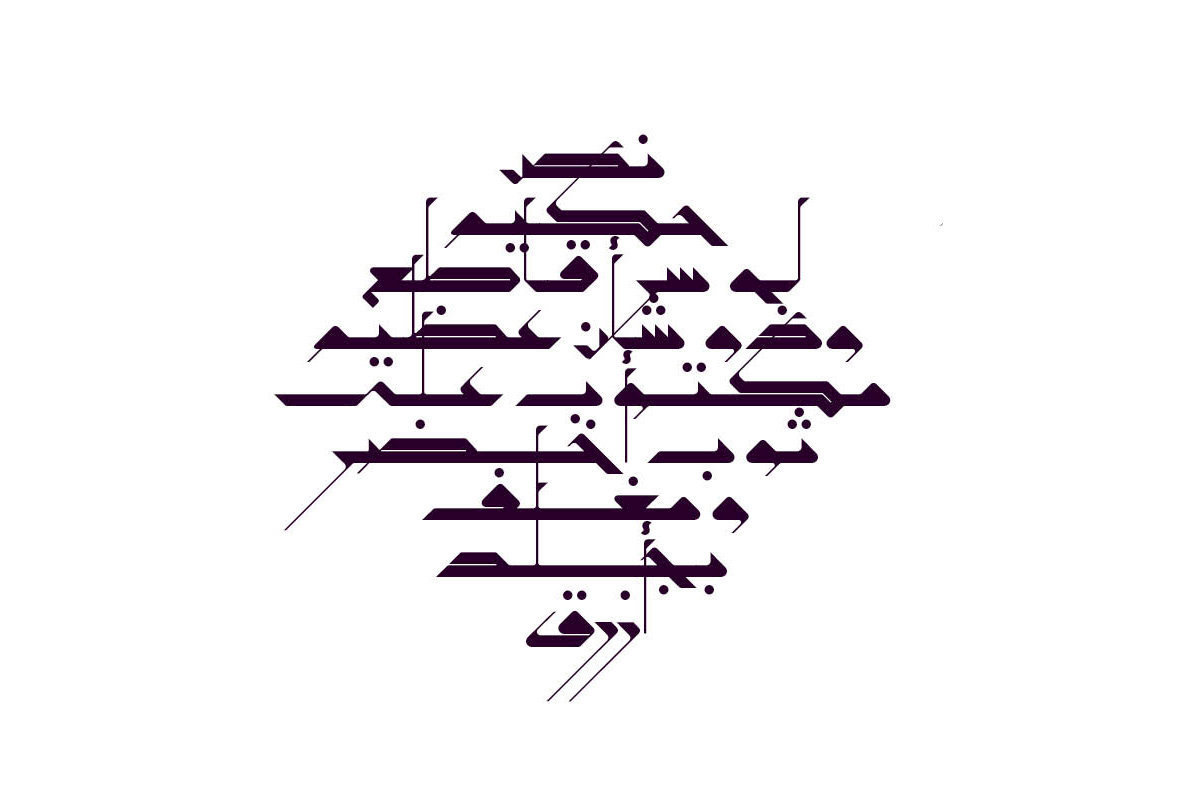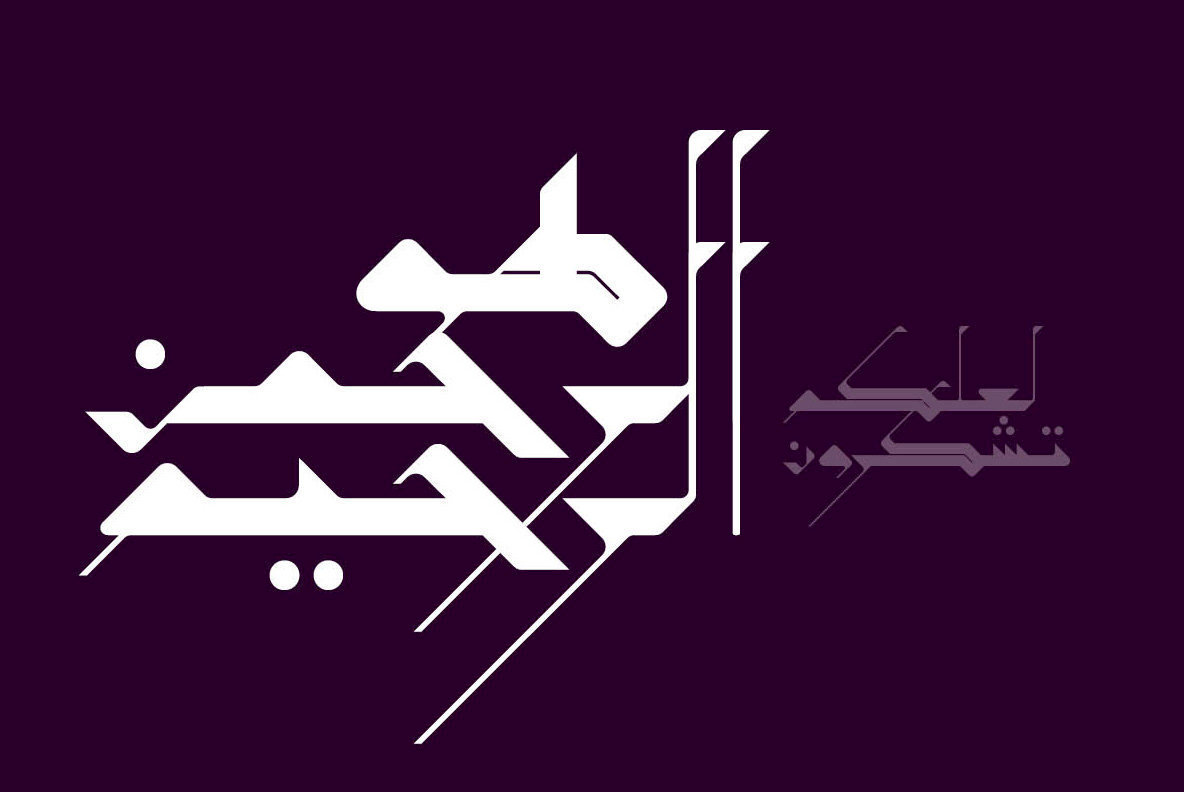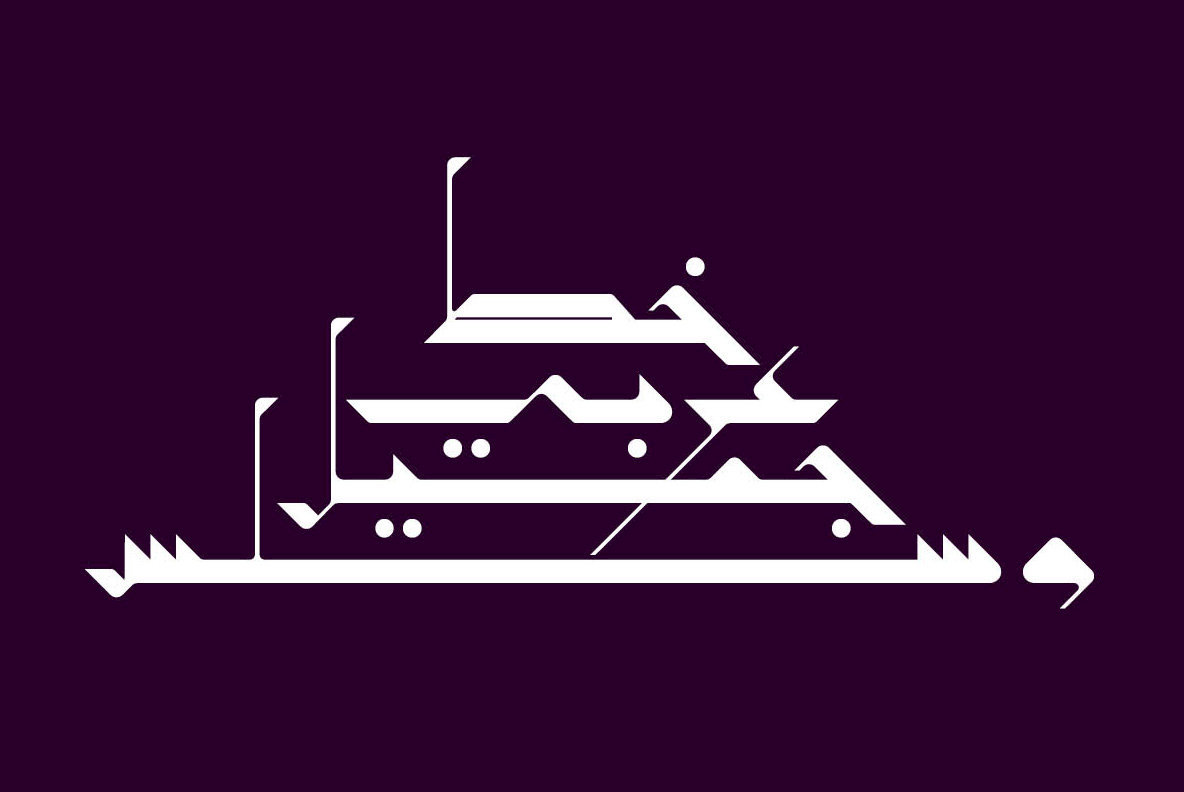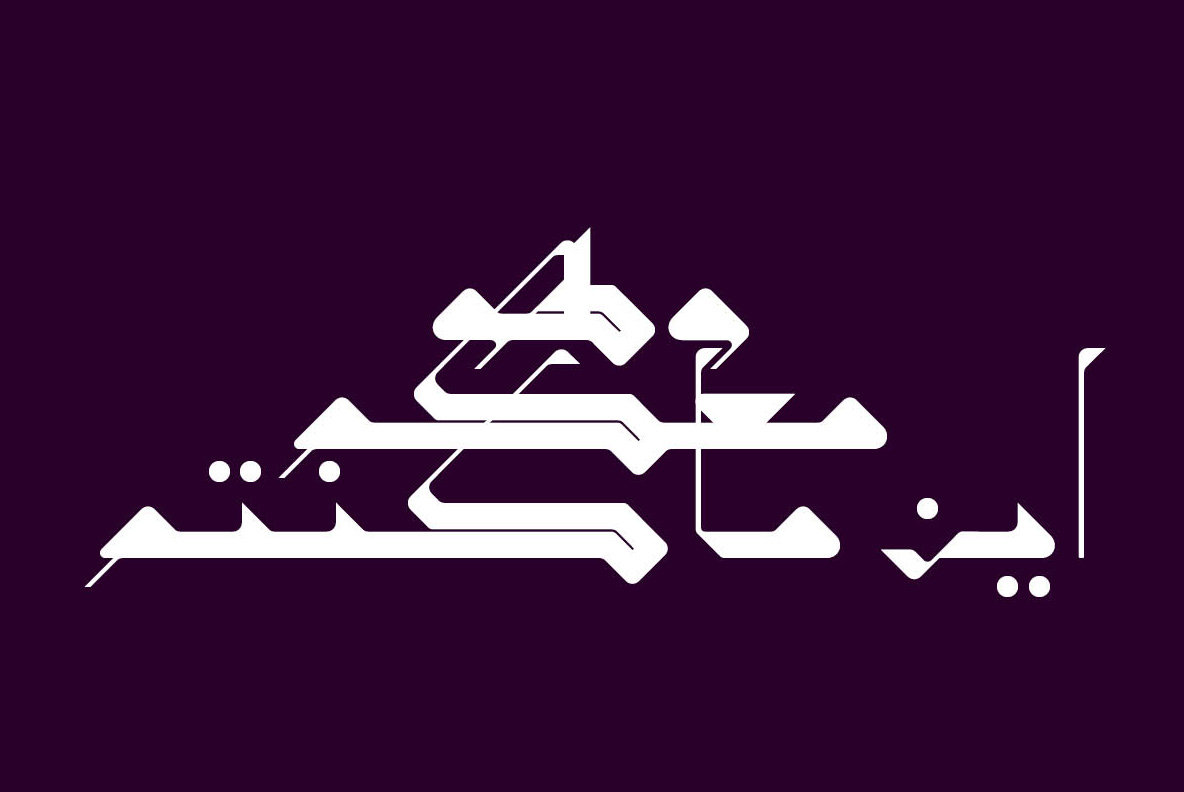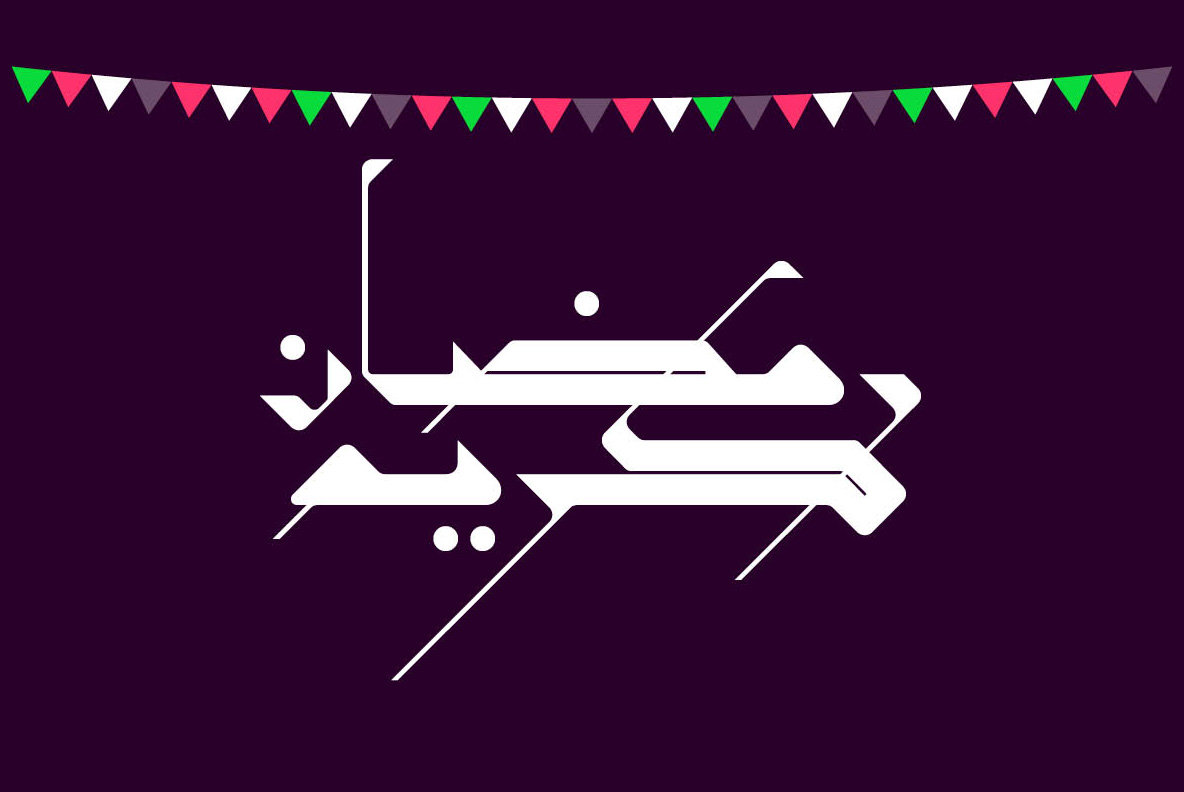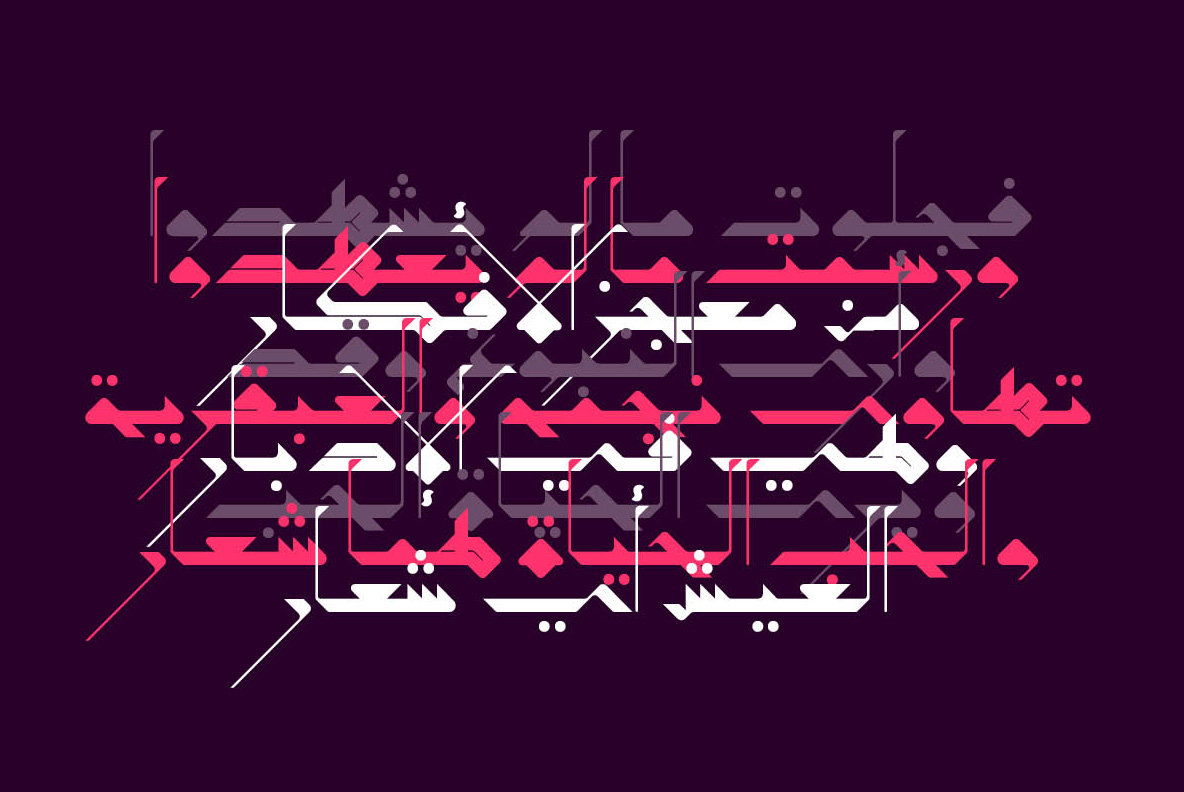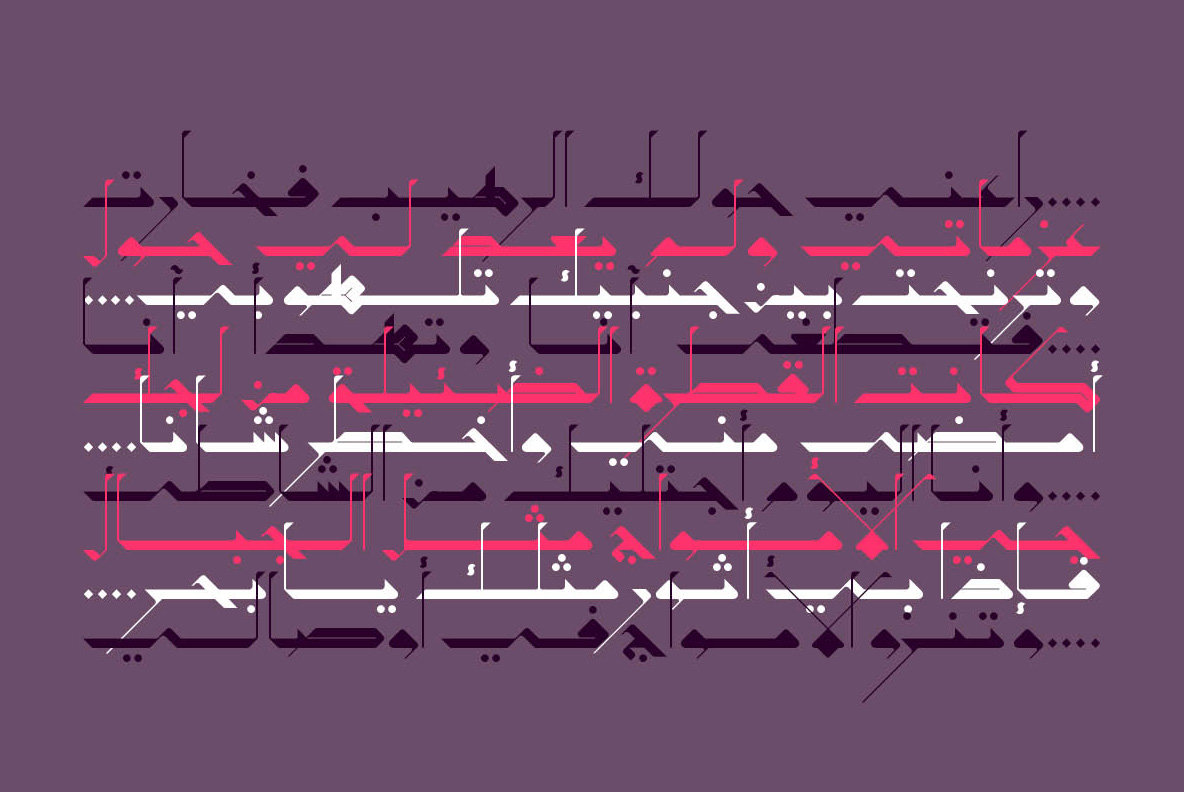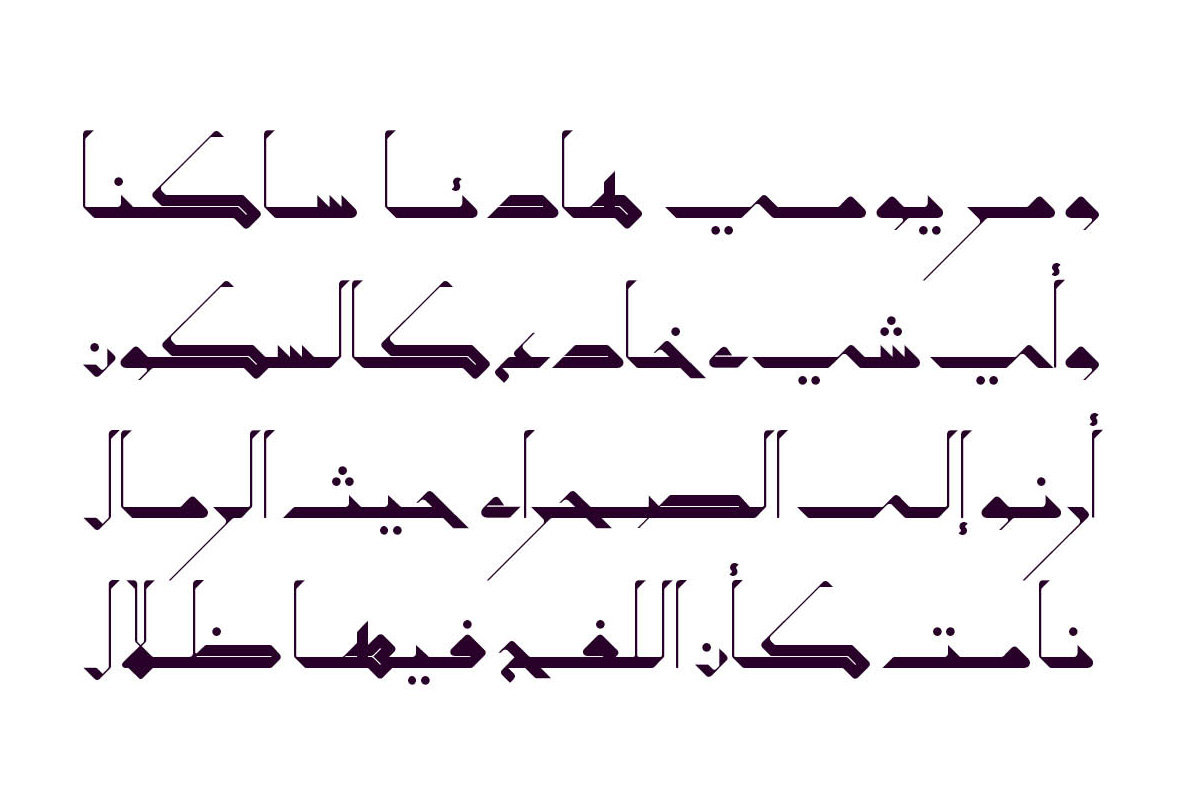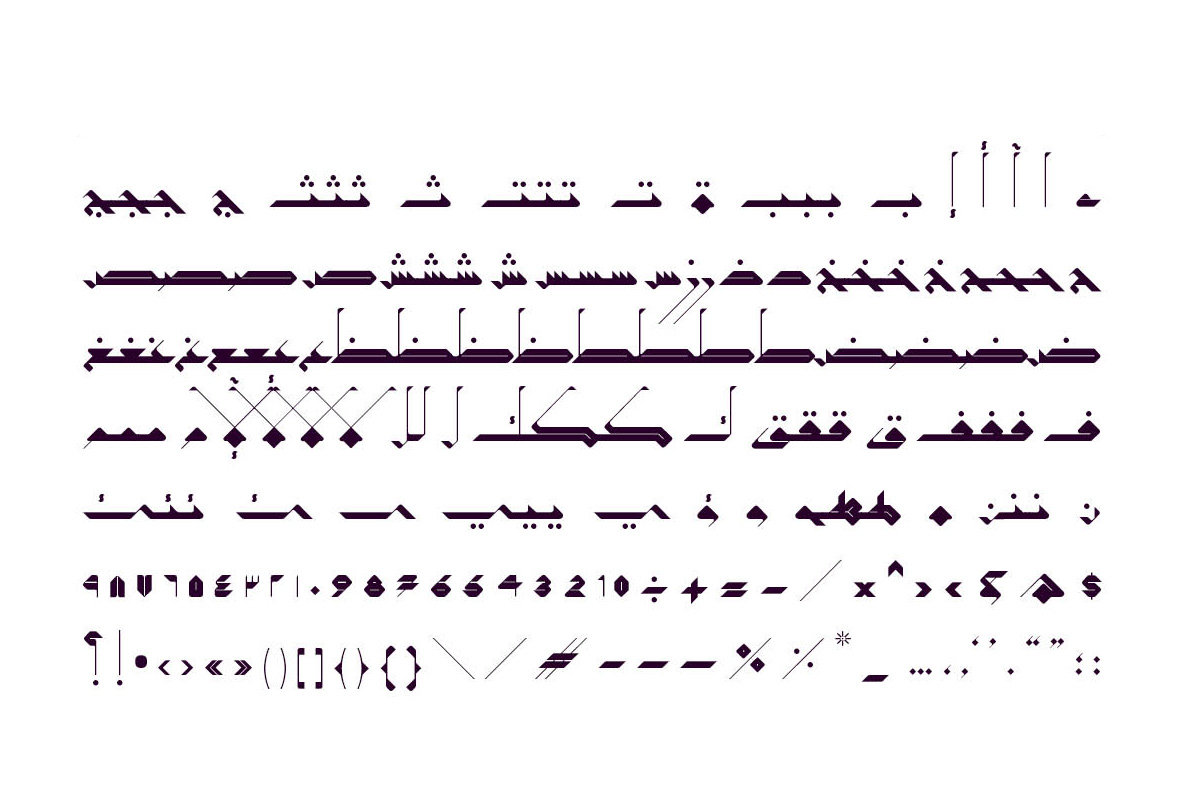
Takween Font
Takween
Takween is an Arabic display font that is inspired by the Mashrequi writing style. The word Takween is the Arabic for composition. The font mainly suits typographic compositions, ornamental designs and abstracts. It also suits branding, print and web design.